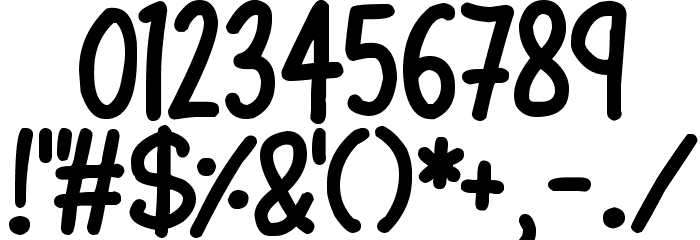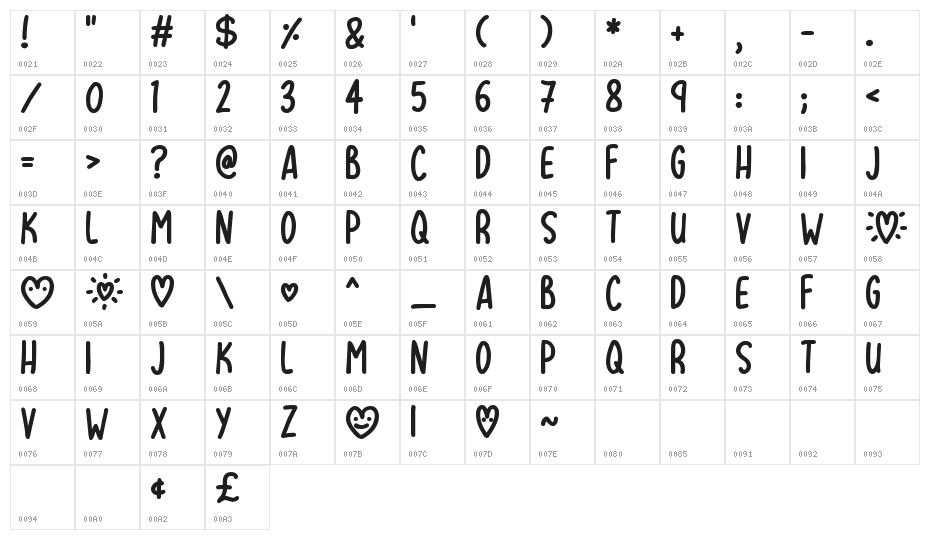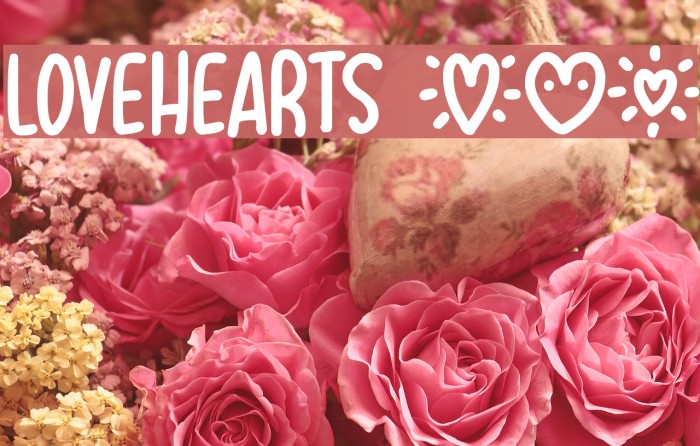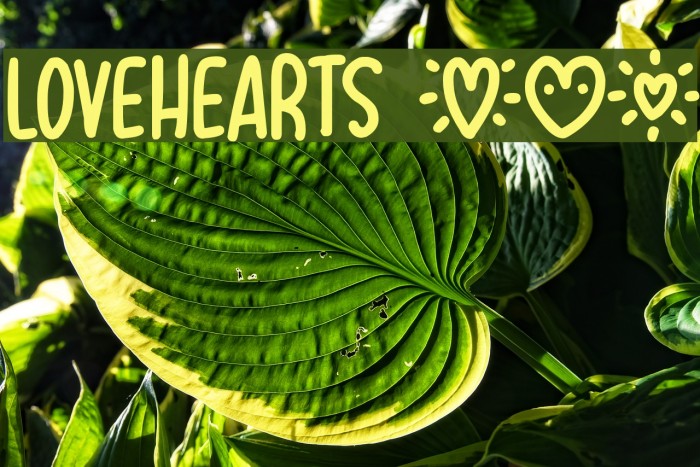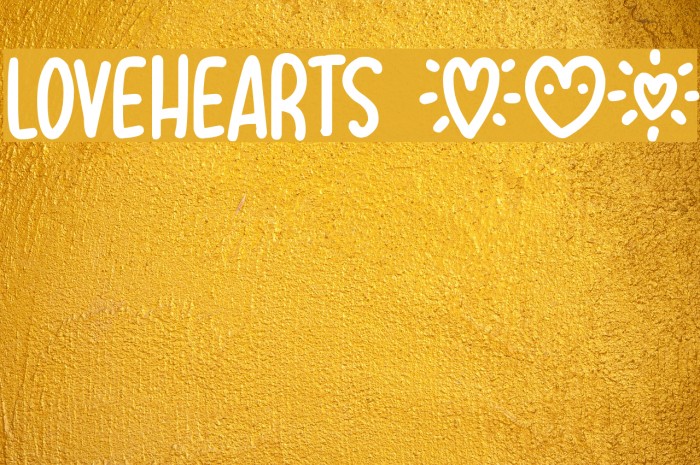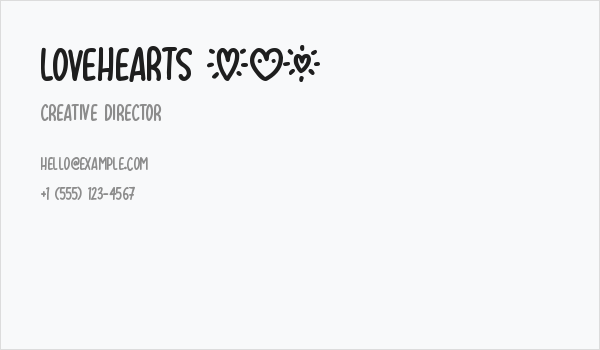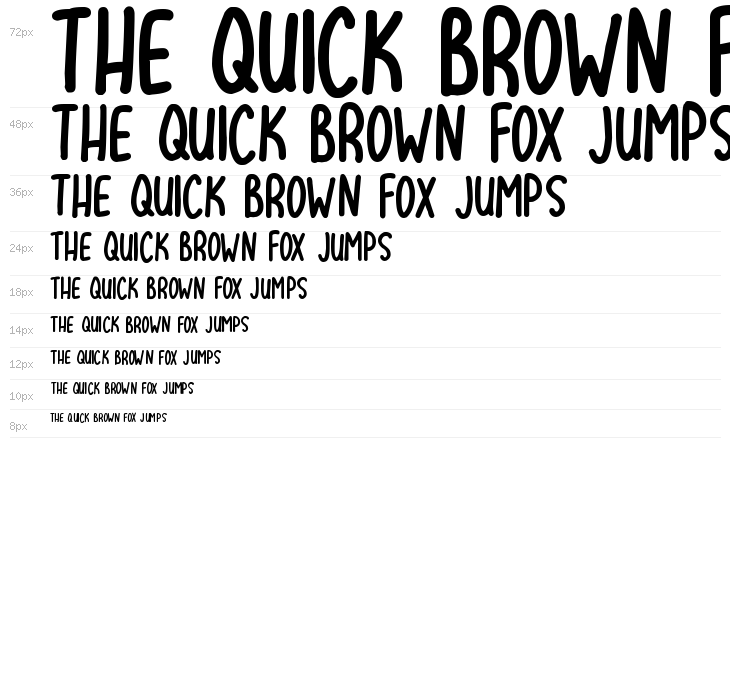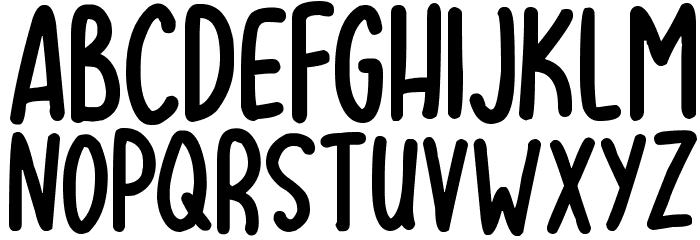
Lovehearts XYZ Font
Lovehearts XYZ Description
This playful and whimsical font features bold, rounded characters with a hand-drawn appearance. The letters are slightly irregular, adding a charming and informal touch. The font includes both uppercase and lowercase alphabets, numerals, and a variety of special characters. Its unique style is accentuated by the inclusion of heart symbols and decorative elements, making it ideal for projects that require a fun and lively aesthetic. The strokes are consistent in thickness, providing a uniform look across all characters.